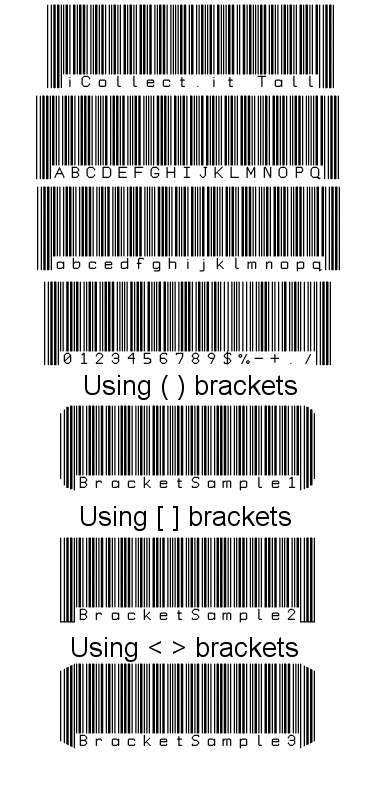
• Many Barcode users require a taller font for easier scanning. I have extended the basic iCollect.it font to cater for this. This is not a work of art, but a practical real-world font, to help users with their personal barcoding (without the expense of a commercial font). iCollect.it is a barcode (and text) version of the "Code 39 Barcode Specification" which can be read by most modern barcode scanners. I added lowercase characters for more readable labels even though they scan as uppercase. *Notes: Use an underscore instead of a space (as space characters are always blank). Place an asterisk before and after your string for it to be recognised. Additionally bracket pairs can be used for more stylish ends for labels etc: () [] <> Happy Scanning! As of Dec 2022, iCollect.it is a registered trademark of iCollect.it Ltd (UK)
This font can be used to create barcode stickers and labels that can be read by most modern barcode readers (capable of reading Code 39 barcodes). Any sequence of characters and numbers should start and end with either the asterisk (*) or the bracket pairs shown below.
There will be issues over what point sizes are workable (and getting to know what FontStruct creates). I am using an industrial laser barcode scanner for testing, so the retail ones may be a lot fussier.
If I can get some feedback on what works well and what doesn't I can tweak the iCollect.it fonts accordingly. One of the commercial Code 39 font suppliers claims it took 15 years expertise to get it right, so I don't expect perfection from day one :)